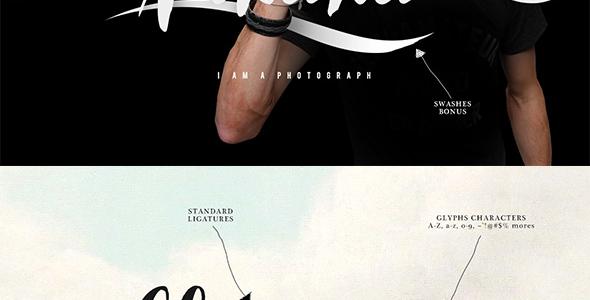
Chromount Typeface
Give your designs an authentic brush handcrafted feel. “Chromount Typeface” is perfectly suited to stationery, logos and much more.